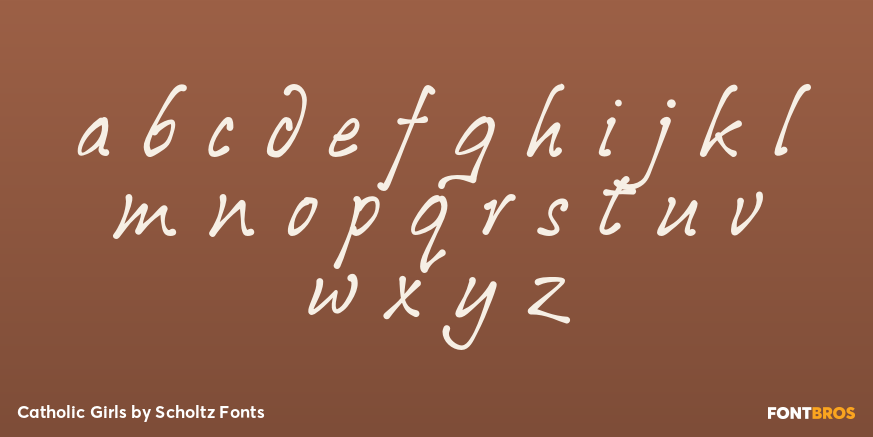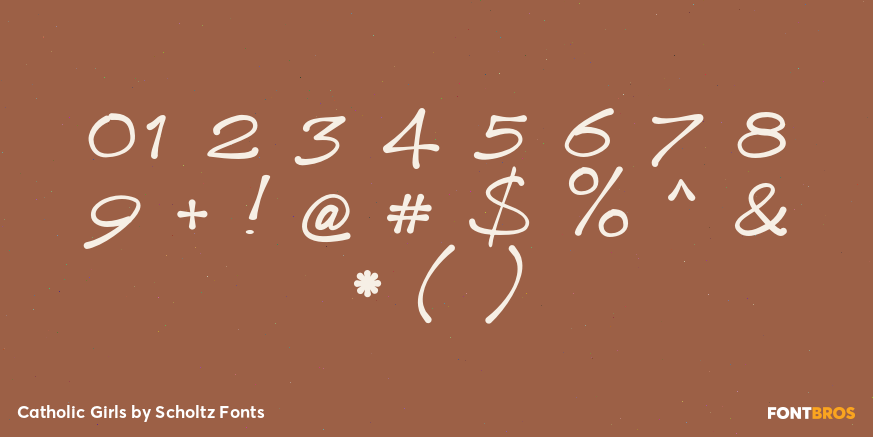
Catholic Girls
Font Family by Scholtz Fonts
Catholic Girls is a timeless, handwriting-based, semi-calligraphic font that is highly readable yet has an informality combined with a quiet elegance. Above all else, Catholic Girls is well-behaved, ladylike, and can be expected to behave correctly and make the right impression in a wide range of situations.
This ?hand? is based on the style of handwriting taught at many Catholic Girls' Schools. It is feminine, elegant and readable.